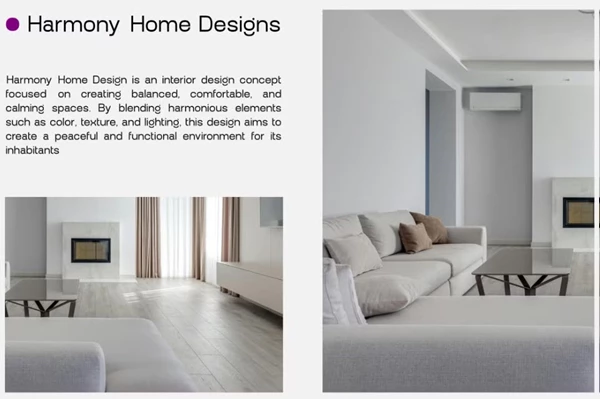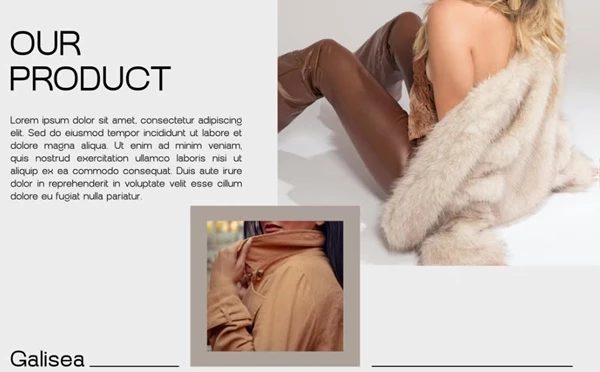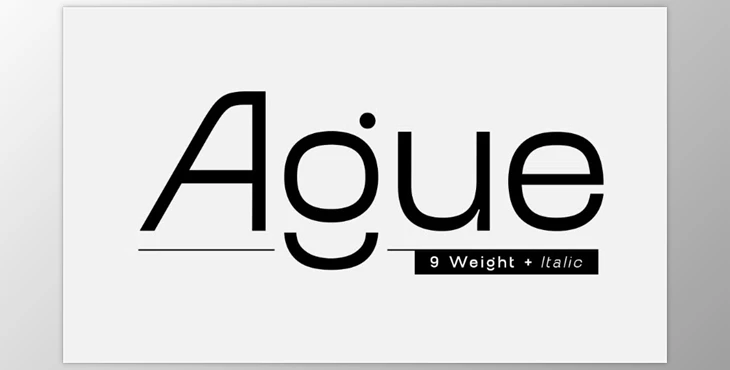
Ague Modern Font:
The Ague Modern Font is an elegant and versatile sans serif font family that will fulfill all of your designer needs. This font comes in 9 weights (Thin to Black) with matching italic weights and extensive stylistic features. The overall aesthetic boasts proportional balances, open counters, crisp lines and modern, minimalist details making it an appropriate choice for branding, editorial, UI/UX and presentation efforts. Ague is easy to read and good looking in both print and digital forms of any size.
Let Ague transform your next project with its modern design possibilities.